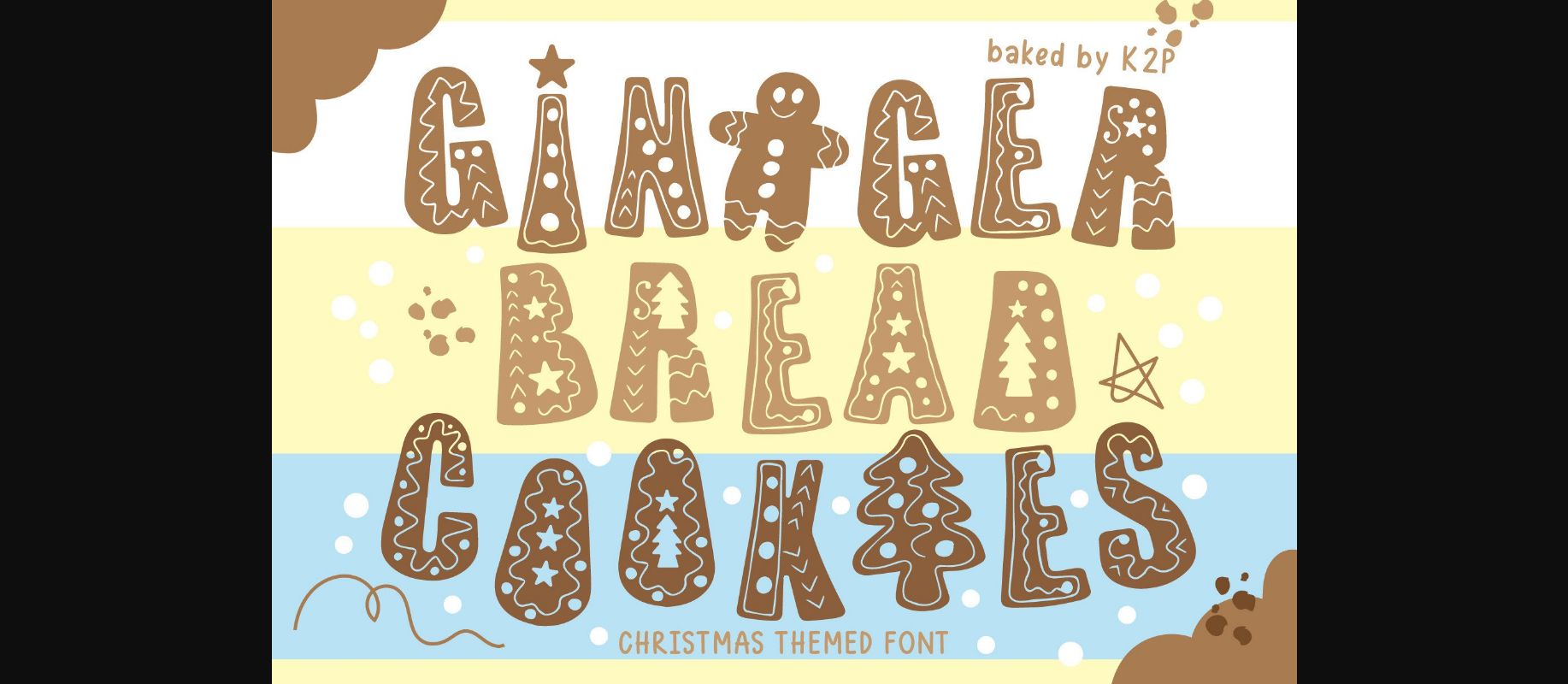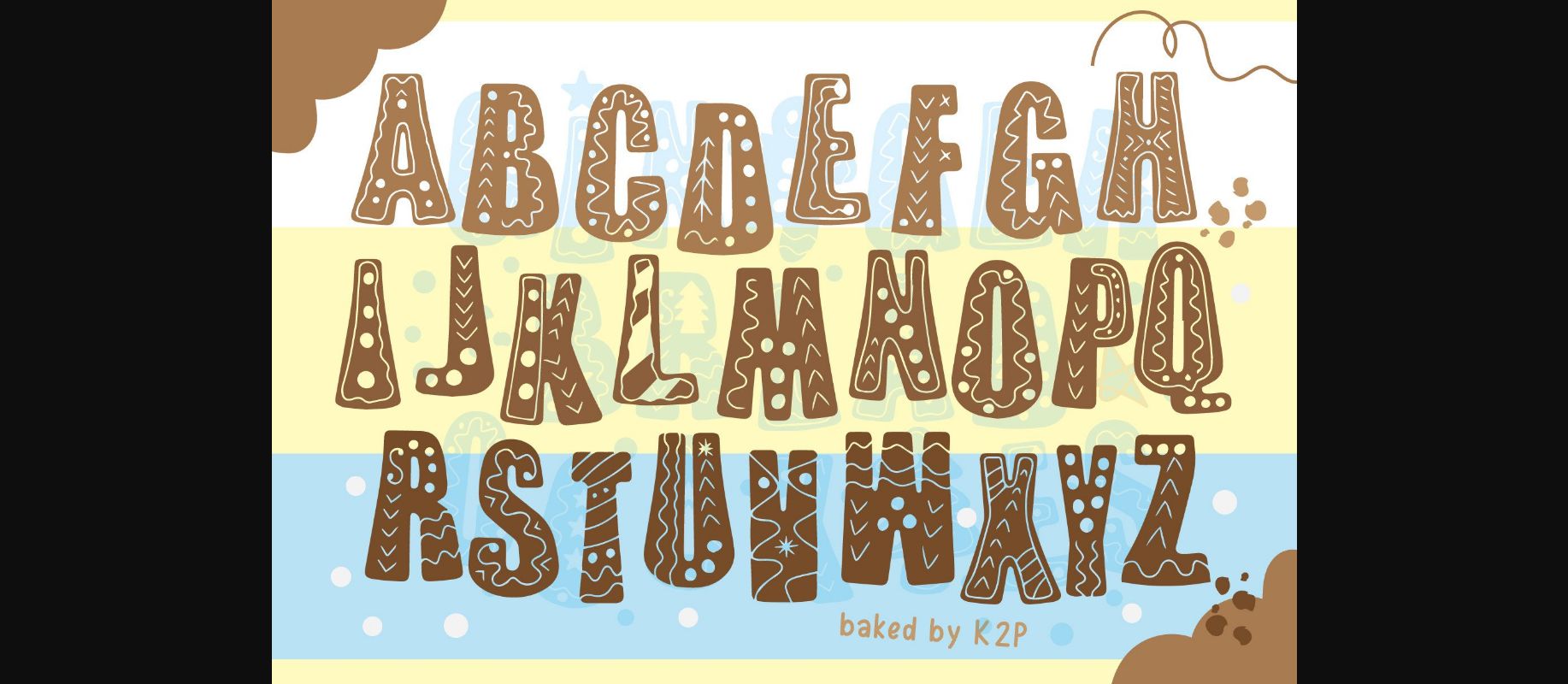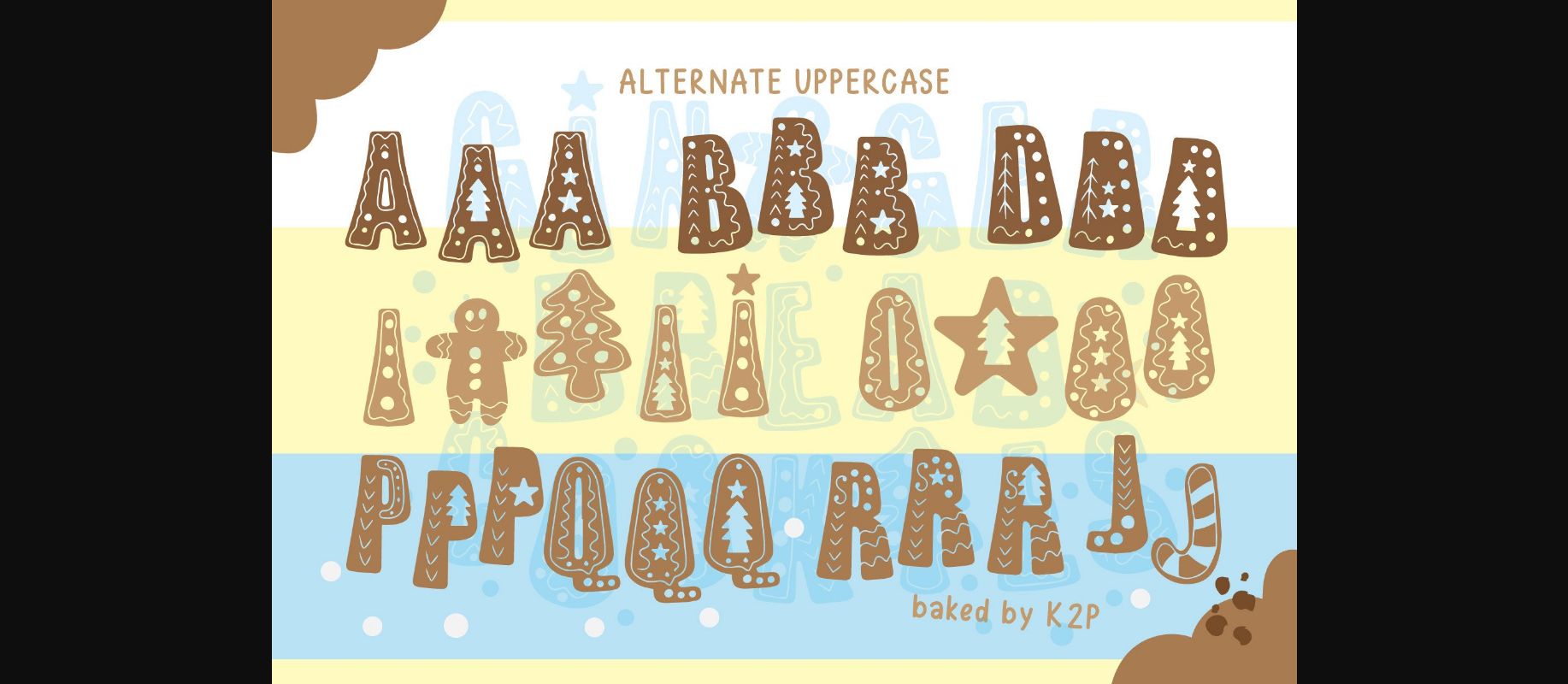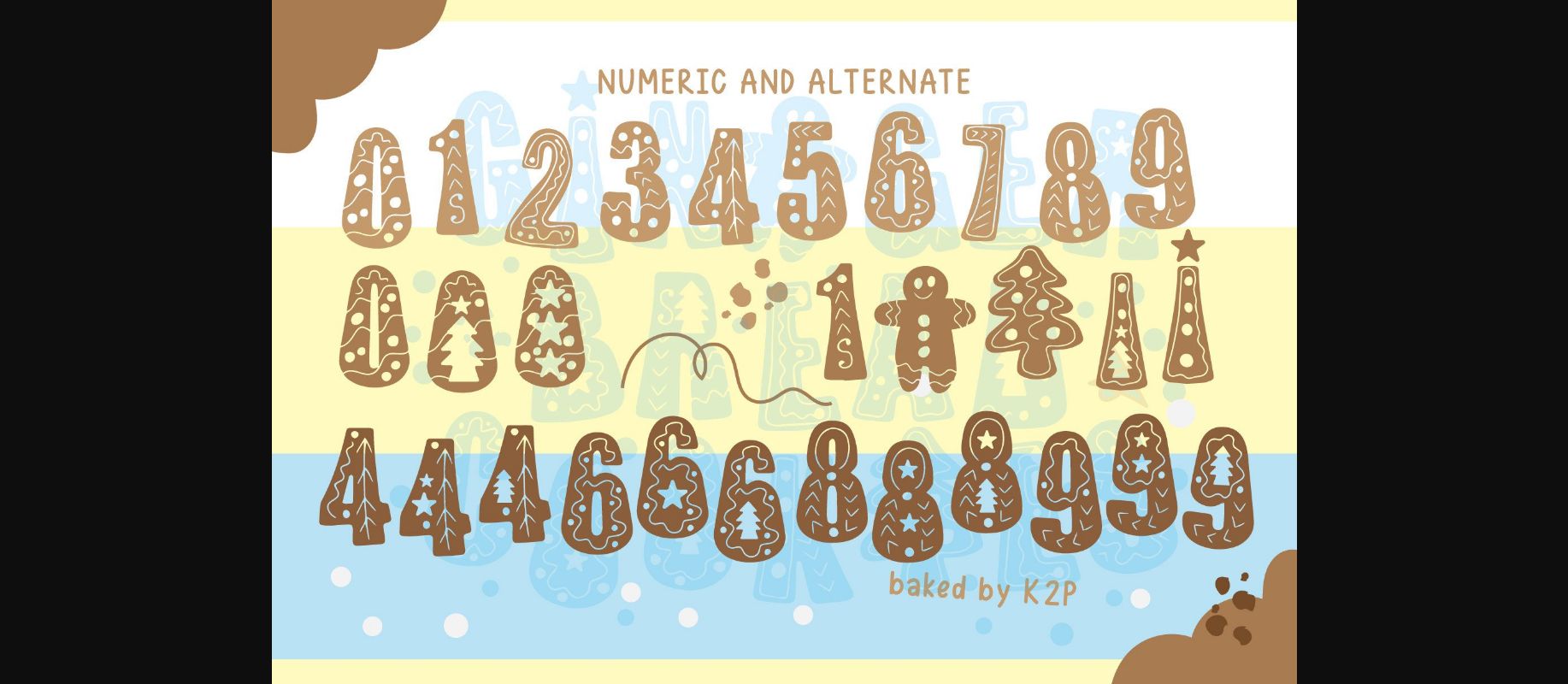
Gingerbread Cookies Font
About Gingerbread Cookies Font
Gingerbread Cookies is a fun, retro, and unique decorative font. Incredibly versatile, this font is suitable for a wide spectrum of applications.